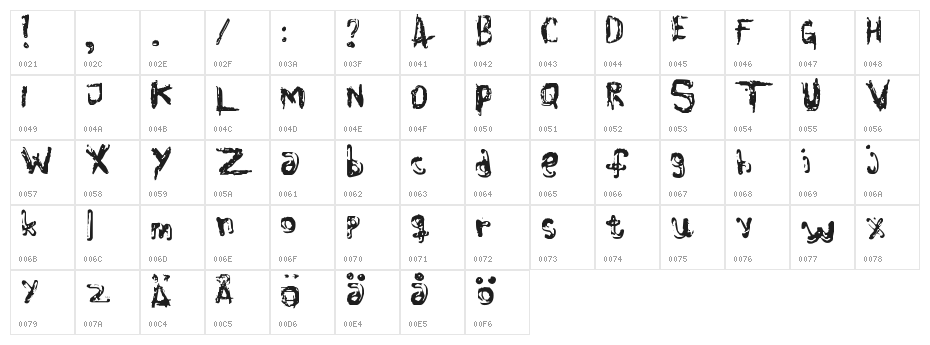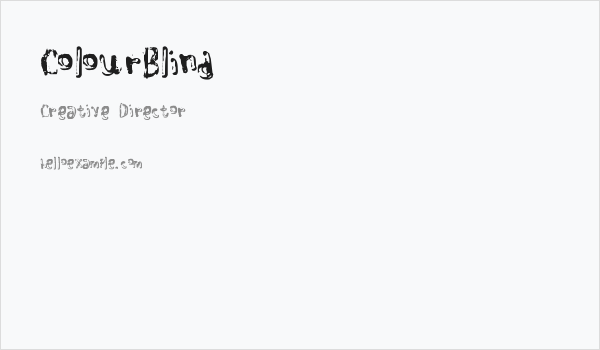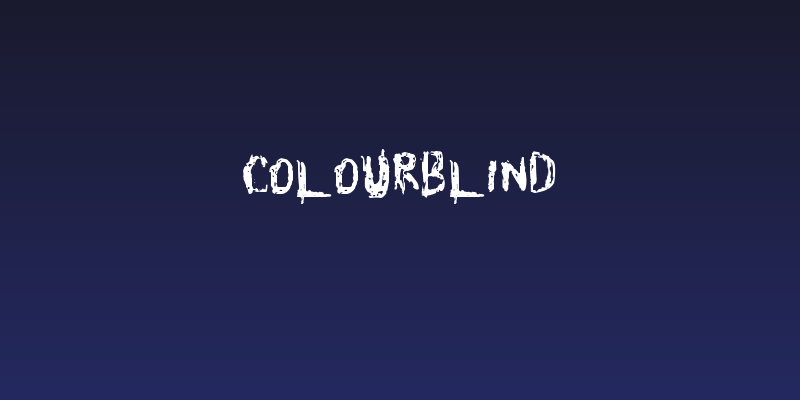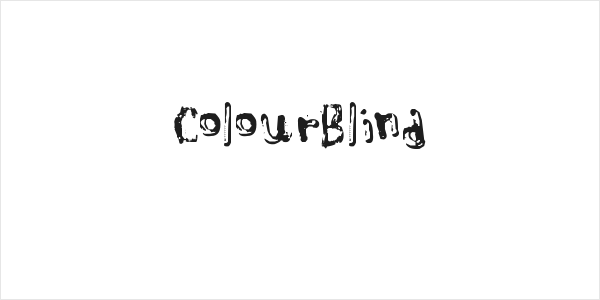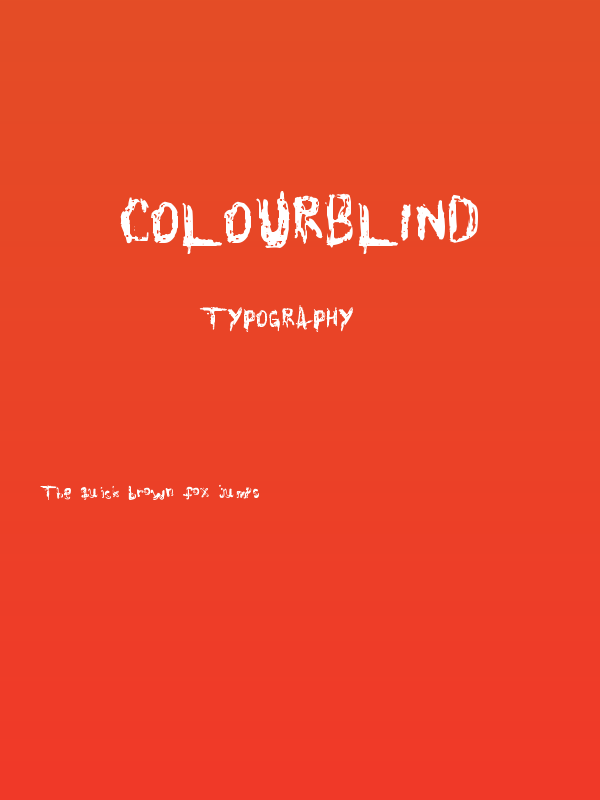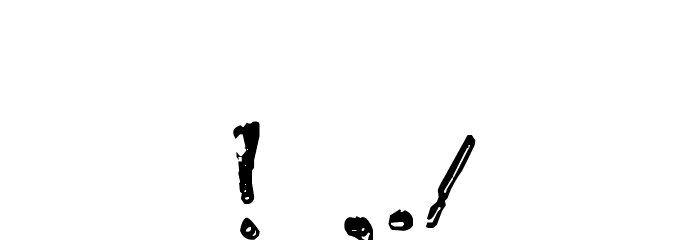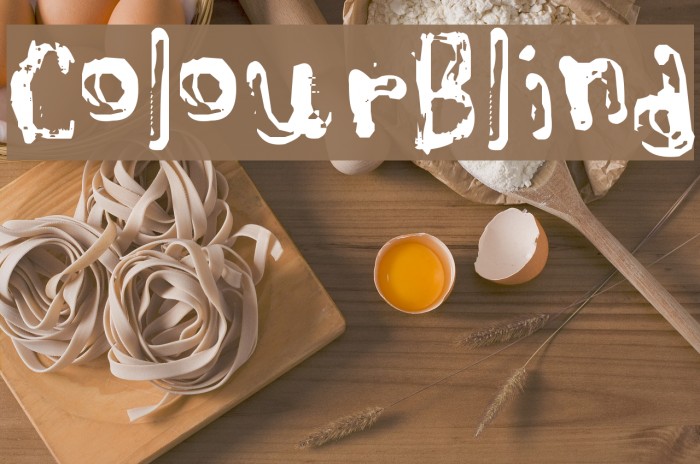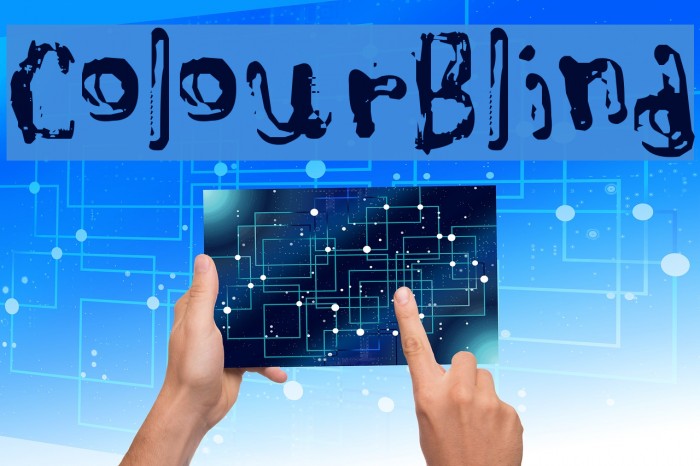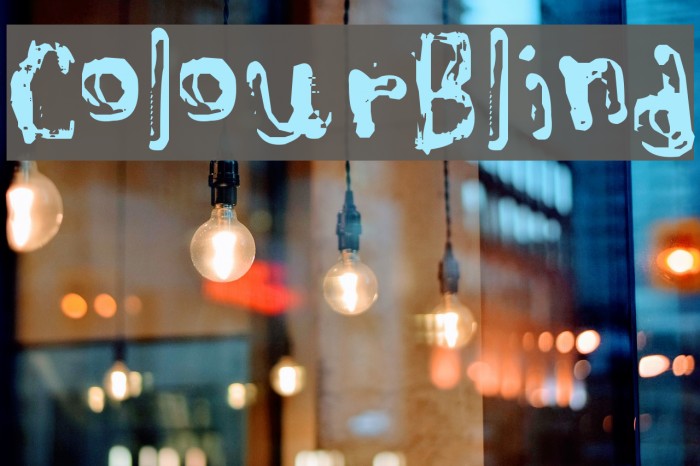
ColourBlind Font
ColourBlind Description
This font exhibits a highly distressed and grungy style, characterized by irregular edges and a textured appearance that mimics the look of worn or decayed surfaces. The letters are bold and have a substantial presence, with varying thickness throughout each character, contributing to its chaotic and raw aesthetic. The uppercase and lowercase letters maintain a consistent theme, with each character appearing unique due to the distressed detailing. The numerals and special characters follow the same design principles, ensuring a cohesive look across all glyphs. This font is ideal for projects that require a bold statement or an edgy, rebellious vibe.
| Overall Style | Grunge, Distressed |
| Proposed Projects | Album covers, streetwear branding, event posters, or any design needing a gritty, urban feel. |